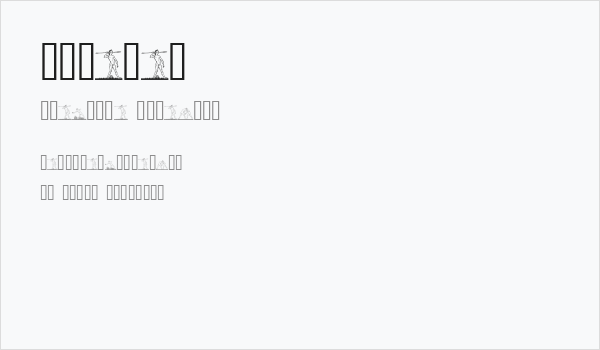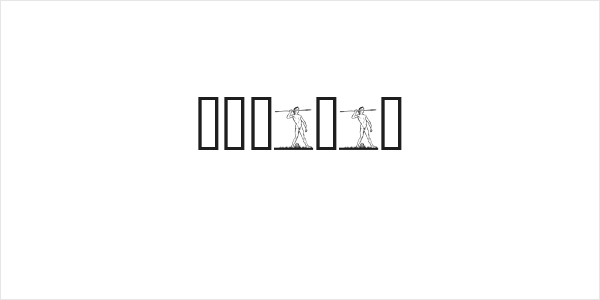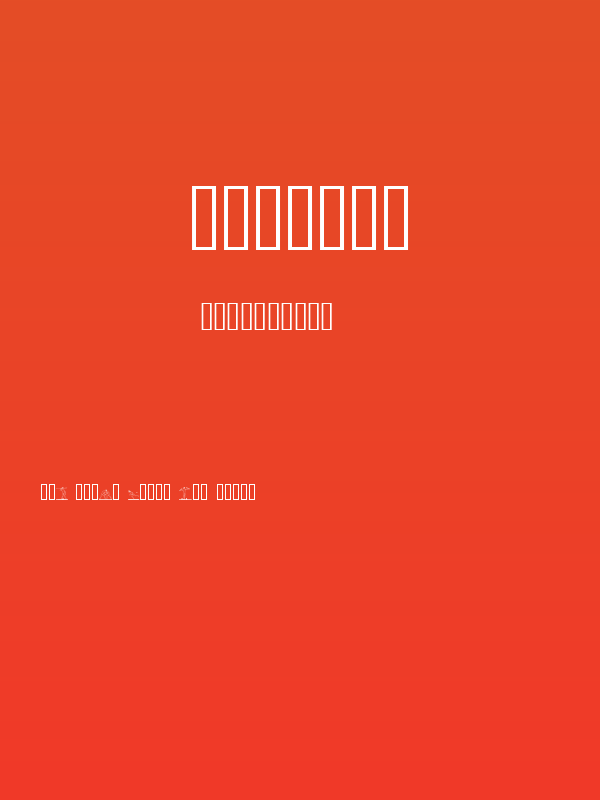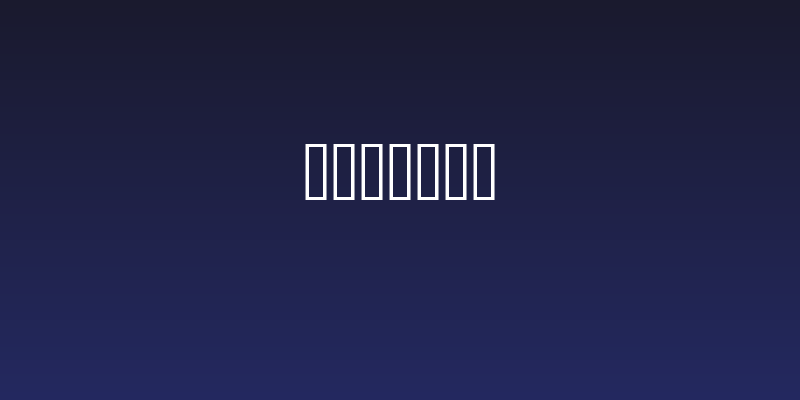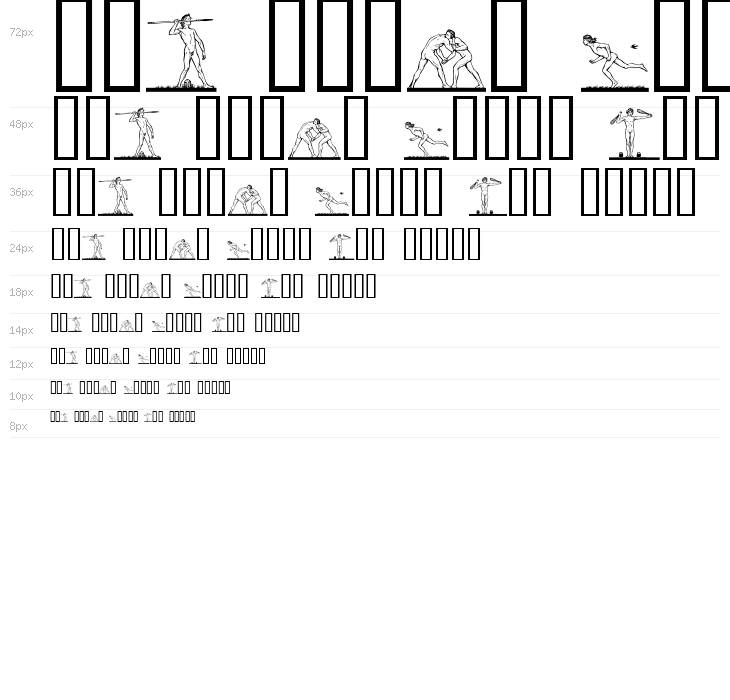
Atleter Font
Atleter Description
This is not a valid font. The image contains illustrations of athletes in various poses, which are not representative of typographic characters. The figures are detailed and depict motion, capturing the essence of athletic activities. The overall composition is artistic and illustrative, rather than functional for text representation.
| Overall Style | Illustrative, Artistic |
| Use Case | Artistic displays, sports illustrations |
| Proposed Projects | Artistic projects, sports-themed illustrations, educational materials on athletics. |